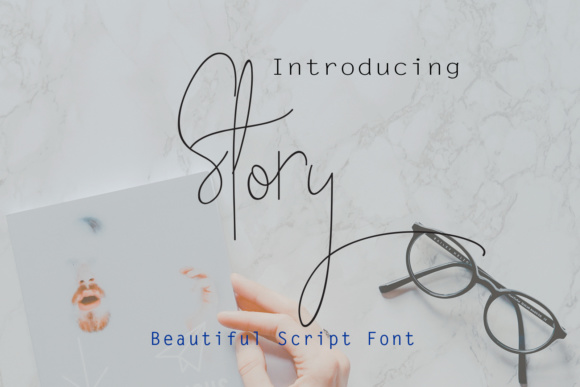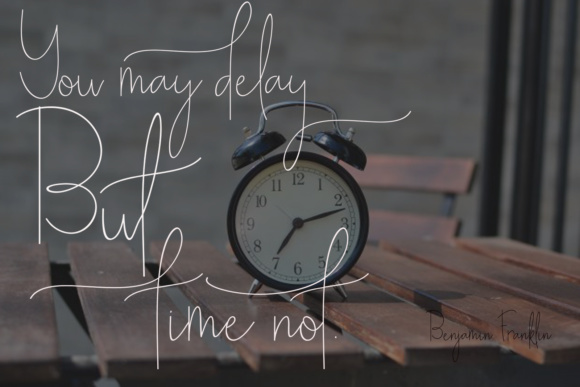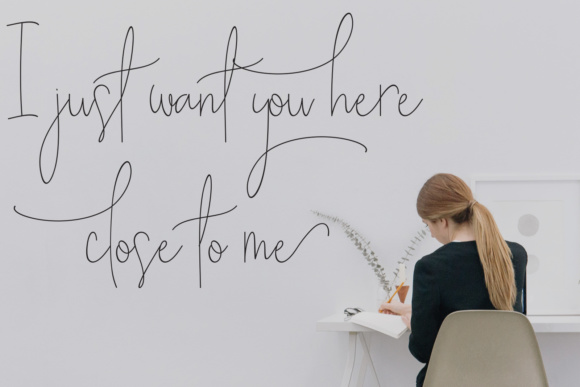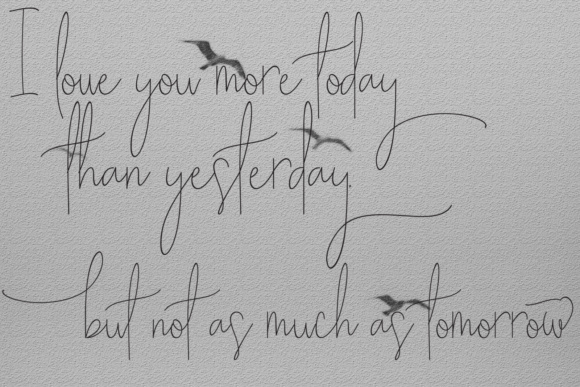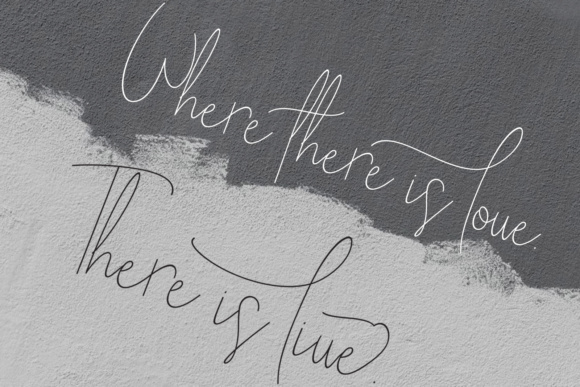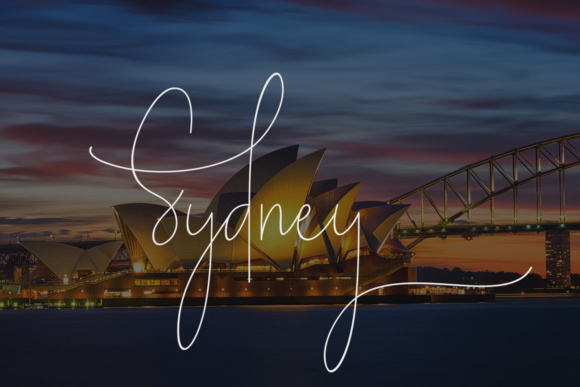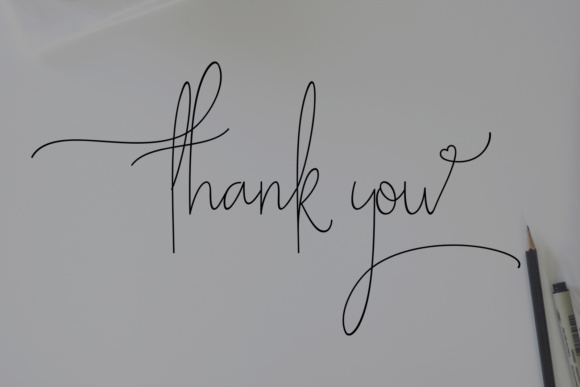
Story Font
About Story Font
The Story is an stylish calligraphy font with a varying baseline. Its smooth lines will add a classic and elegant touch to your designs.